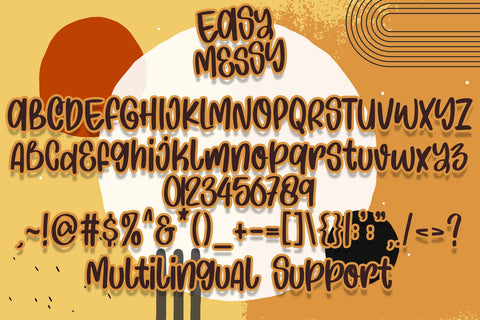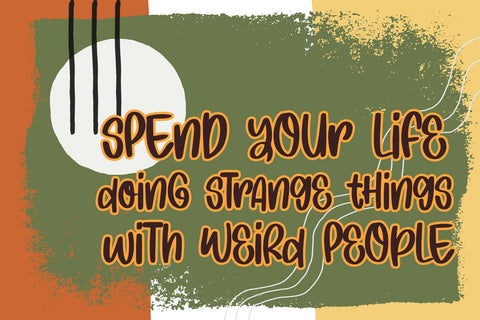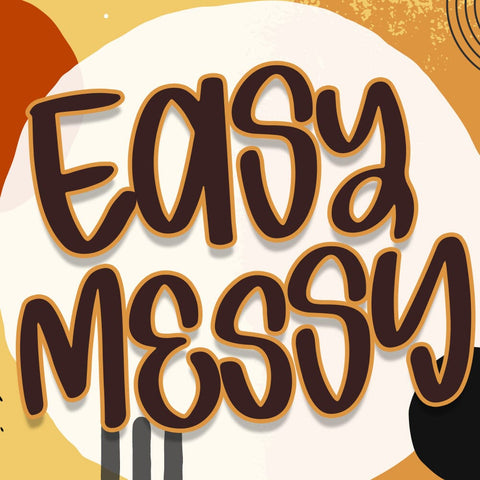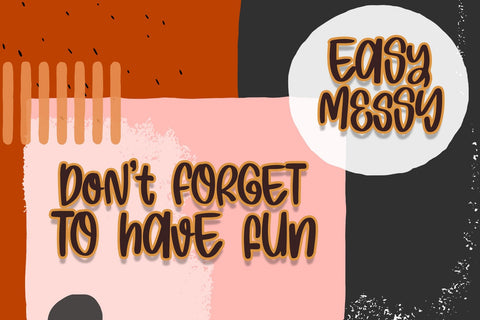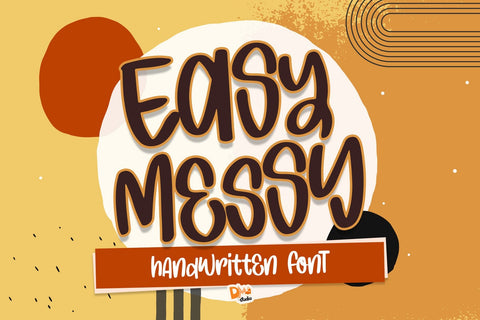
Easy Messy Font
Easy Messy Font is a versatile and casual typeface that brings a delightful touch of informality and creativity to your design projects. Its playful and imperfect letterforms add character, making it an excellent choice for a wide range of applications, from branding to social media graphics.
- Casual and Playful Design: The Easy Messy Font embraces a casual and playful aesthetic, giving your text a relaxed and approachable feel. Its intentionally imperfect strokes bring a handcrafted touch to your designs.
- Brand Identity: Create a unique and laid-back brand identity with the Easy Messy Font, adding a touch of personality to your logo and branding materials.
- Social Media Graphics: Stand out on social media with eye-catching posts and stories using this font to add a playful and informal vibe.
- Informal Messaging: Ideal for conveying a friendly and approachable tone in text messages, notes, and informal communications.
- Crafting and DIY Projects: Use the Easy Messy Font to add a handmade feel to crafting projects, DIY gifts, and personalized items.
Elevate your designs with the charm of the Easy Messy Font. Whether you're crafting a brand identity, designing social media graphics, or adding a personal touch to your projects, this font brings a playful and informal vibe to your creative endeavors.